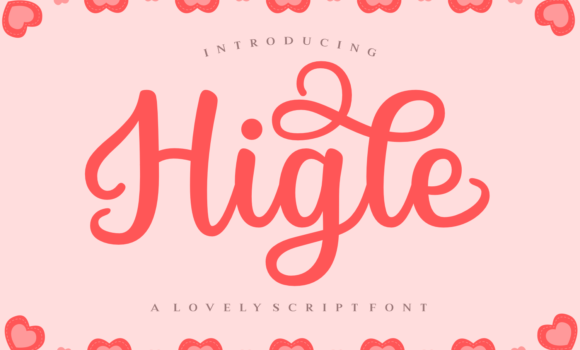
higle
Higle Font – Free Download Introduction to Higle Font Higle is a handwritten font designed in a friendly and lovely style. 📸 Preview Gallery 5 images 📌 Product Name Higle Font 👤 Author Andrian Dehasta 📂 Category Explore ⬇️ Download